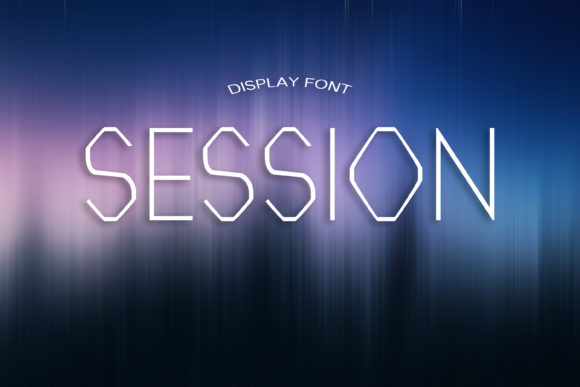
Unveil Session Font: A Typographical Masterpiece to Ignite Your Creative Vision
In the realm of typography, Session Font stands as a radiant beacon of innovation, beckoning you to embark on a journey of boundless creativity. Designed by the illustrious dmytroyarish, this display font captivates with its modern, all-caps allure, meticulously crafted to strike a perfect balance between form and function. Prepare to be mesmerized by its delicate, razor-sharp glyphs, exuding an air of sophistication and poise that will elevate your designs to new heights of elegance.
Witness the Timeless Appeal - A Legacy Engraved in Ink
With Session Font, you're not just acquiring a font; you're inheriting a legacy of timeless appeal. It's a font that transcends fleeting trends, remaining forever relevant and captivating. Its classic charm and unwavering beauty will effortlessly elevate your projects, whether it's a captivating logo, an eye-catching poster, or an immersive website. Embrace the enduring power of Session Font and watch your creations resonate with a timeless grace that leaves an unforgettable impression.
Immerse Yourself in a World of Creative Possibilities
With Session Font at your fingertips, the boundaries of creativity dissolve, making way for an infinite realm of possibilities. Its versatility knows no bounds, effortlessly adapting to a myriad of design styles and genres. Unleash your imagination and watch as Session Font transforms your vision into a tangible masterpiece. From bold and impactful headlines to delicate and intricate details, this font caters to your every whim, empowering you to express your unique artistic voice with unparalleled clarity and finesse.